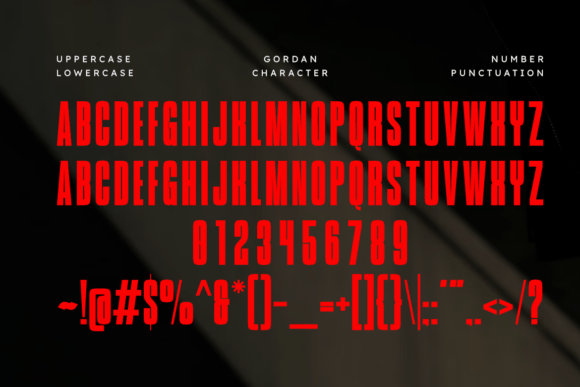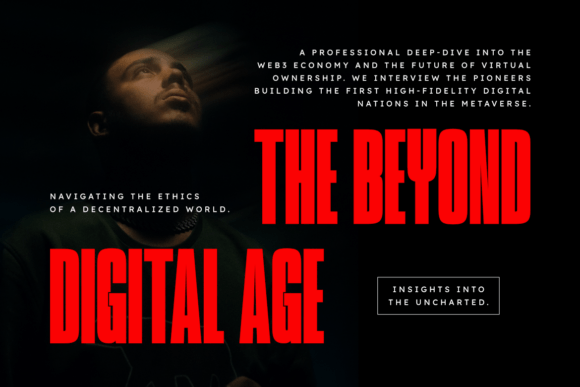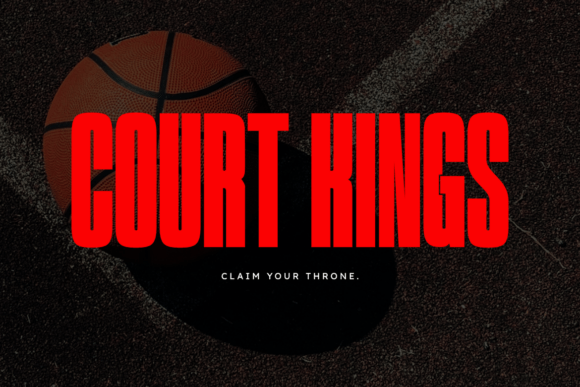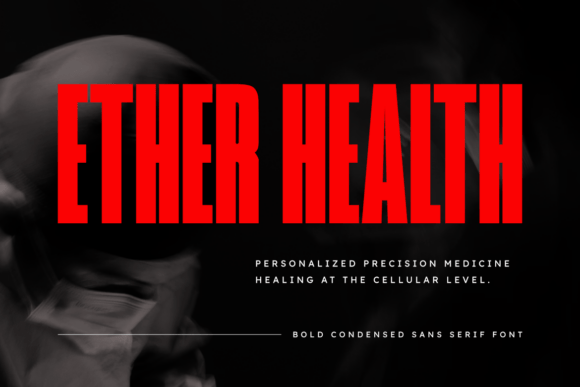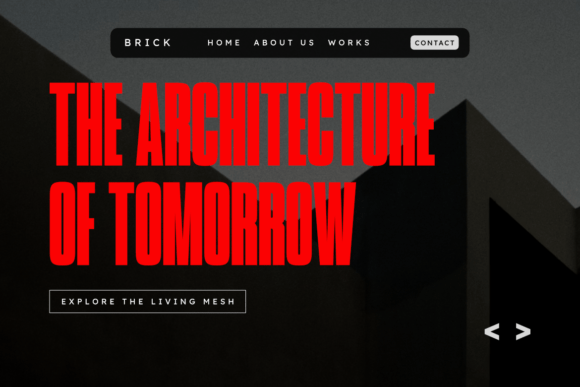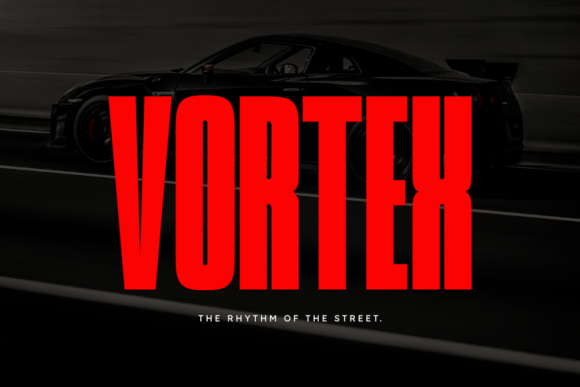
The Power of Gordan Font: Elevate Your Designs with Confidence
I’ll never forget the time I was working on a project for a sports brand, and I was struggling to find the perfect font to convey their bold and dynamic personality. The client wanted a font that would make their logo stand out, but I was stuck in a design rut. That’s when I stumbled upon Gordan Font, and it was love at first sight! 💡
With its refined vertical structure and clean, solid lines, Gordan Font is a bold and powerful condensed sans serif font designed for high-impact and precise typography. It’s perfect for strong headlines, professional sports logos, industrial branding, and high-impact digital posters.
- ✅ Confidence and balance: Gordan Font exudes confidence and balance, making it perfect for designs that need to make a statement.
- ✅ Clean and solid lines: The font’s clean and solid lines give it a professional and advanced look that’s hard to achieve with other fonts.
- ✅ OpenType features: The font comes with a range of OpenType features, including glyphs and stylistic alternates, that allow for maximum creative control.
- ⚠️ Limited use cases: While Gordan Font is perfect for high-impact designs, it may not be the best choice for body text or more formal designs.
- ⚠️ Requires careful kerning: As with any condensed font, kerning can be a challenge, especially at smaller font sizes.
Gordan Font was designed with the goal of creating a bold and powerful font that would make a statement. The designer, who wishes to remain anonymous, drew inspiration from classic sans serif fonts and modernized them with a refined vertical structure and clean lines. The result is a font that’s both confident and balanced, perfect for high-impact designs.
Q: What is Gordan Font?
A: Gordan Font is a bold and powerful condensed sans serif font designed for high-impact and precise typography.
Q: Is Gordan Font suitable for body text?
A: While Gordan Font is perfect for headlines and titles, it may not be the best choice for body text due to its condensed nature.